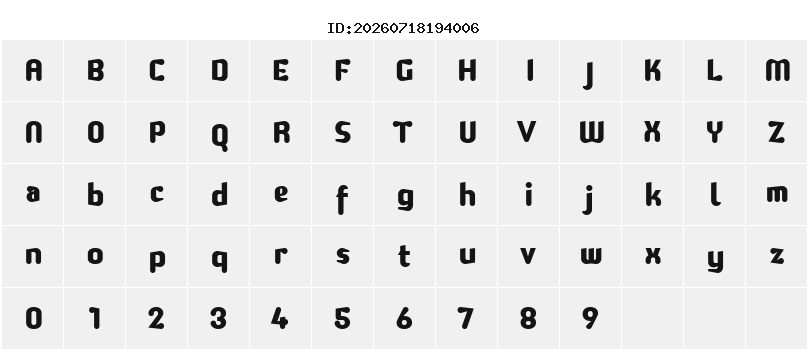
• Font Name: Crem S
About Crem S.ttf
Crem S.ttf is a modern, elegant sans-serif font designed for ultimate readability and visual harmony. Perfect for branding, headlines, web design, and print materials.